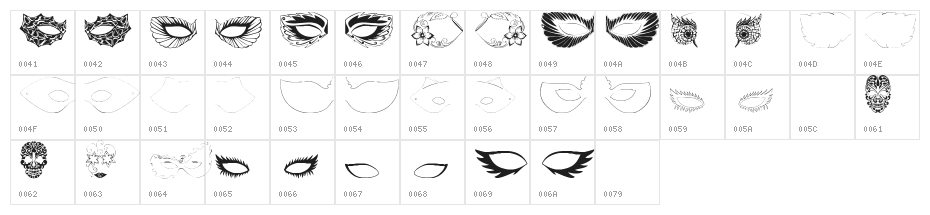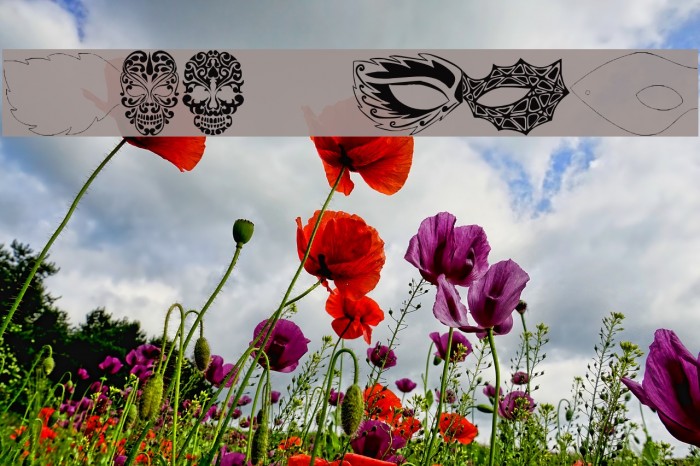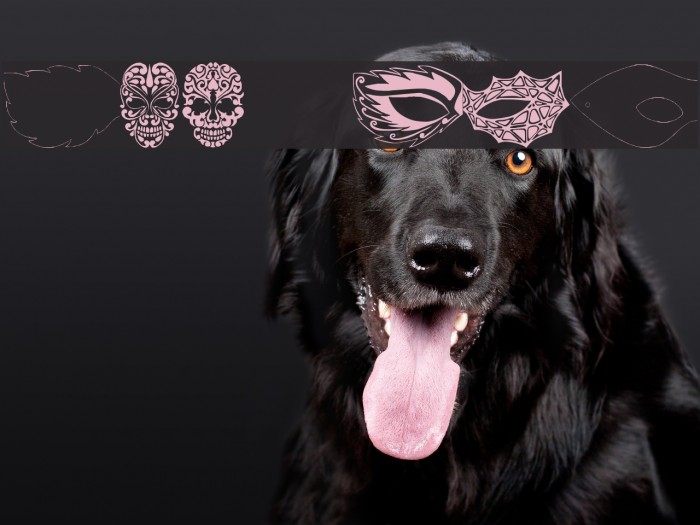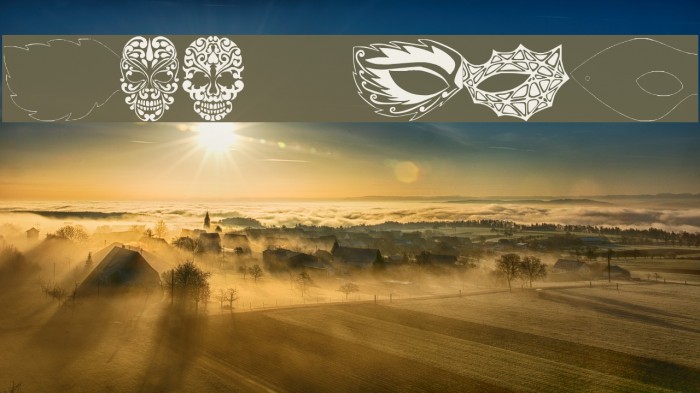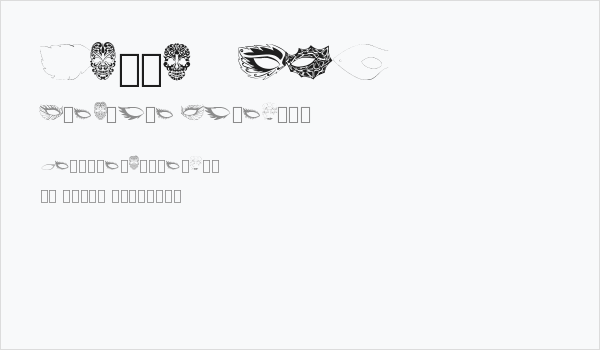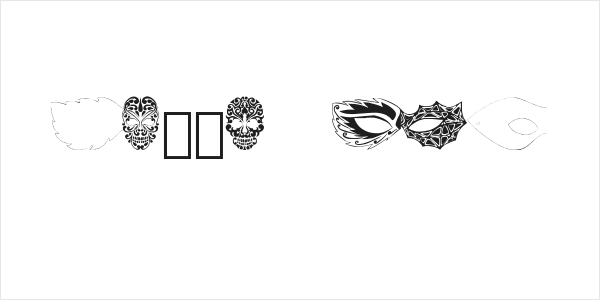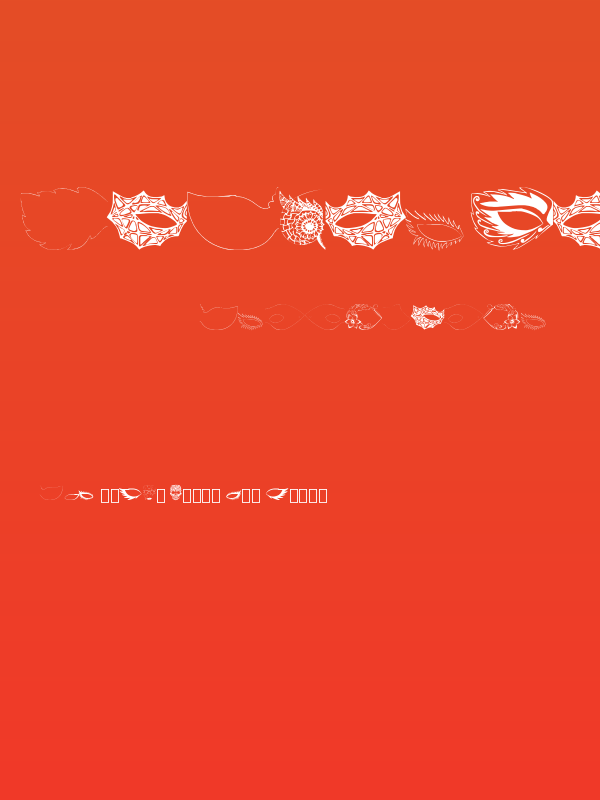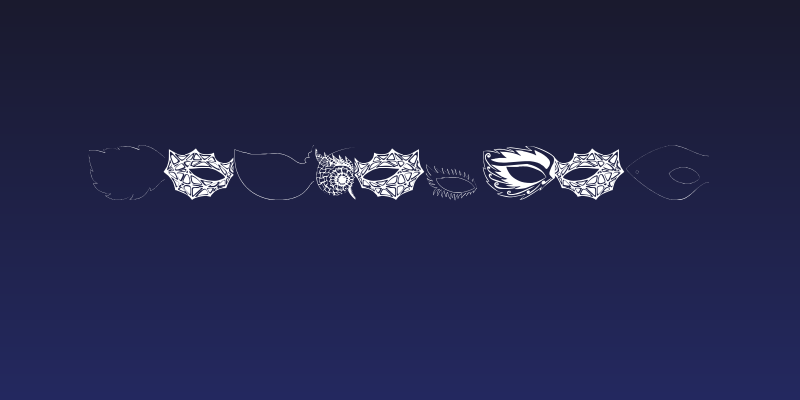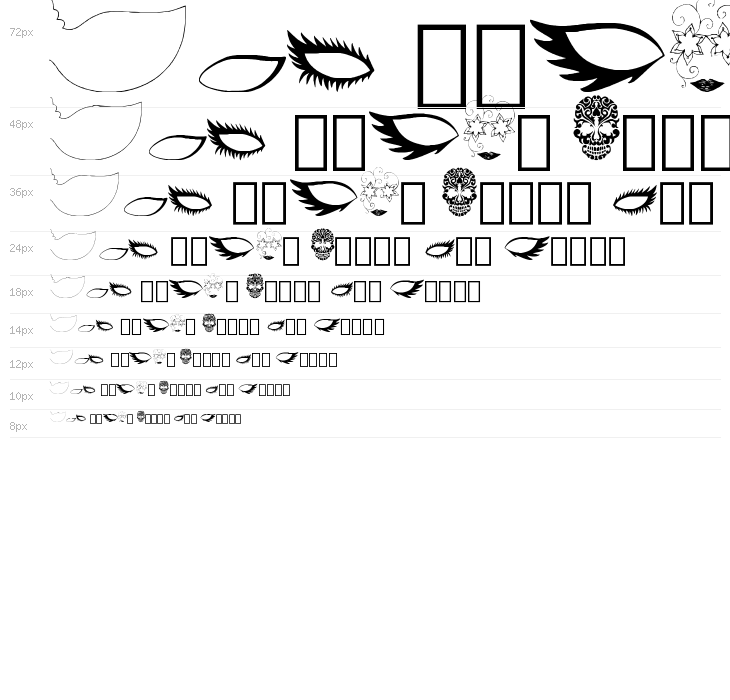
MaskbyEBO Font
MaskbyEBO Description
A decorative dingbat font featuring a variety of ornate masquerade masks, including feathered, floral, and geometric designs, presented in both filled and outline styles. The characters are highly stylized and illustrative rather than traditional alphanumeric glyphs.
| Overall Style | Decorative, Thematic, Ornate |
| Use Case | Decorative elements, Themed graphics, Event materials |
| Proposed Projects | Party invitations, event posters, carnival flyers, decorative headings, themed branding, scrapbooking. |